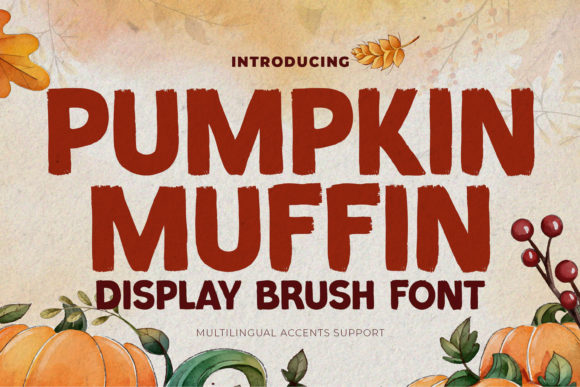
Welcome to the world of Pumpkin Muffin Font, a delightful display font that will add a touch of whimsy and cheer to your creative endeavors. Created by the talented Gassstype Studio, this charming typeface is a feast for the eyes, featuring bold and playful characters that dance across the page.
Immerse yourself in the vibrant, hand-drawn aesthetic of Pumpkin Muffin, where each letter is a unique work of art. Its chunky, rounded shapes exude a sense of warmth and friendliness, making it perfect for projects that aim to capture the attention and leave a lasting impression.
With Pumpkin Muffin Font, you'll unlock a world of possibilities. Whether you're crafting eye-catching logos, designing playful posters, or creating unique branding materials, this font is your perfect companion. Its versatility knows no bounds, allowing you to express your creativity in countless ways.
Step into a realm of endless inspiration with Pumpkin Muffin Font. Let your imagination soar as you discover the endless possibilities it holds. From whimsical invitations to vibrant social media posts, this font will add a touch of magic to all your designs.